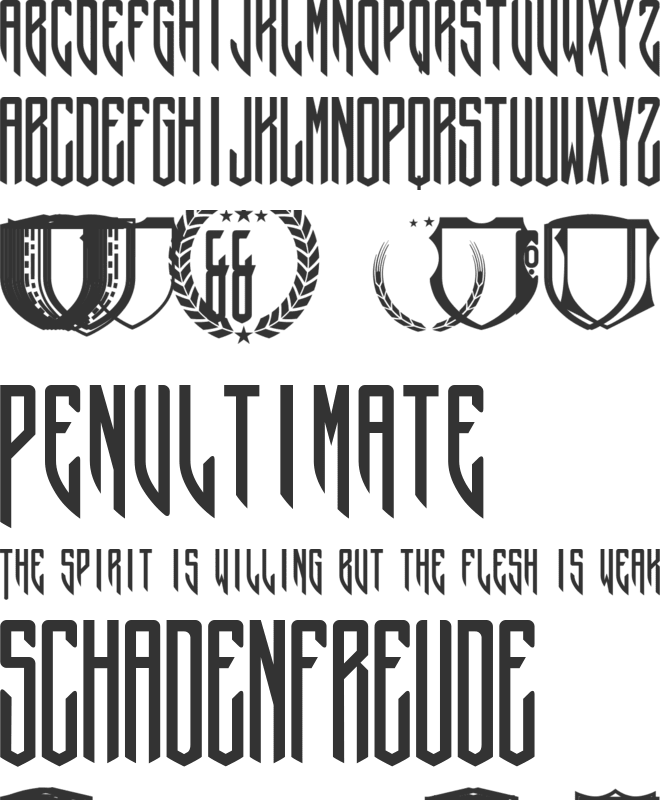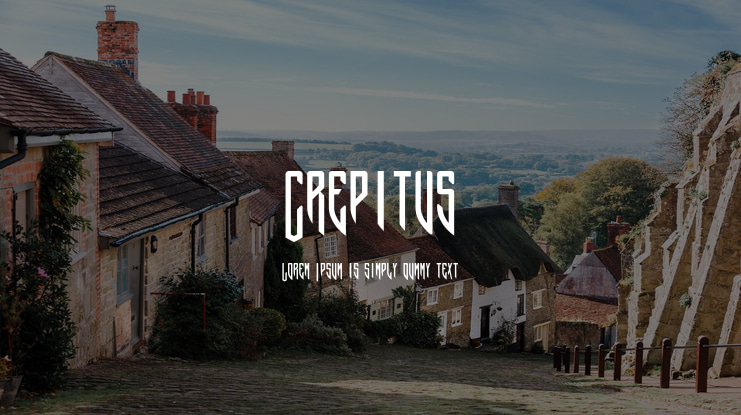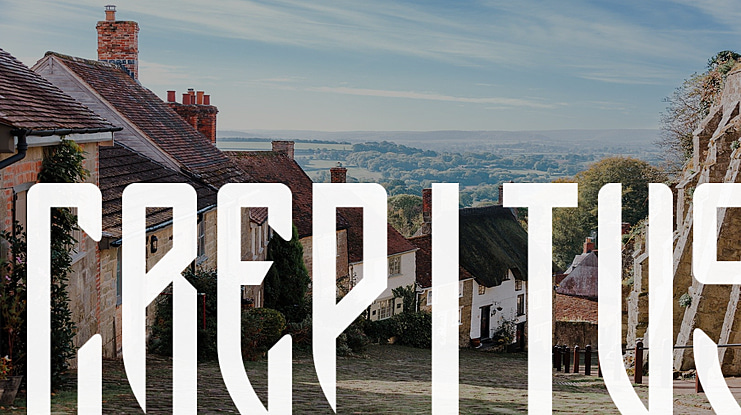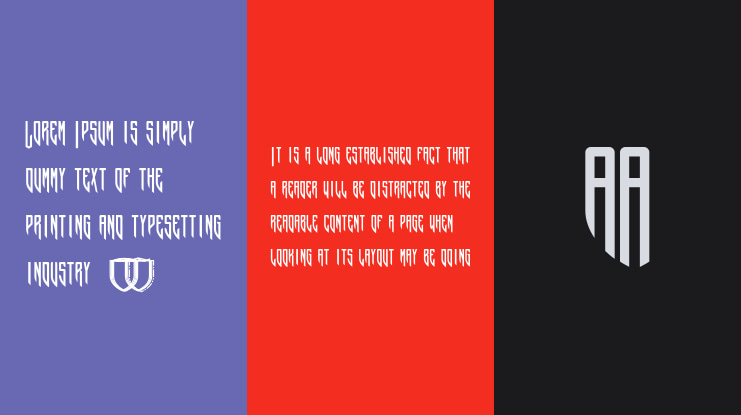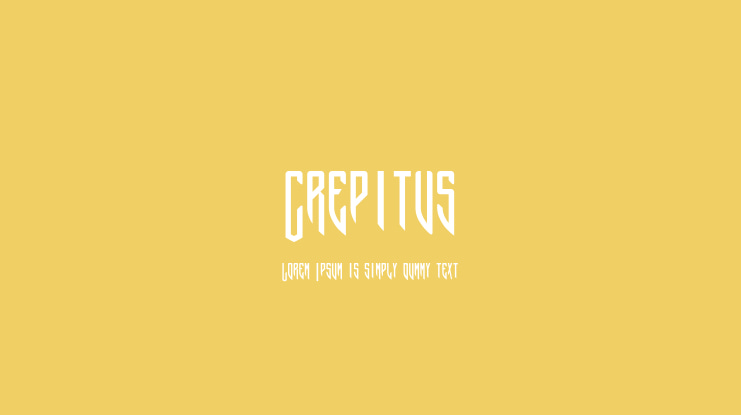
Crepitus Font
Crepitus |ˈkrɛpɪtəs| Noun [ mass noun ] Medicine a grating sound or sensation produced by friction between bone and cartilage or the fractured parts of a bone. Created as a distraction project whilst convalescing with broken ribs, Crepitus is named in honour of the background sounds my chest was making whilst I drew it. Crepitus Monogram is a three letter Monogram font with added border goodness. It allows you to create 3 letter shield monograms. The 3rd character requires discretionary ligatures to be enabled in the app used for setting the monogram, so check app documentation for how to enable discretionary ligatures. Crepitus Monogram is free for personal and not for profit use, but a donation is required for ANY commercial use. A donation, of any size grants licence to use Crepitus Monogram for commercial purposes.